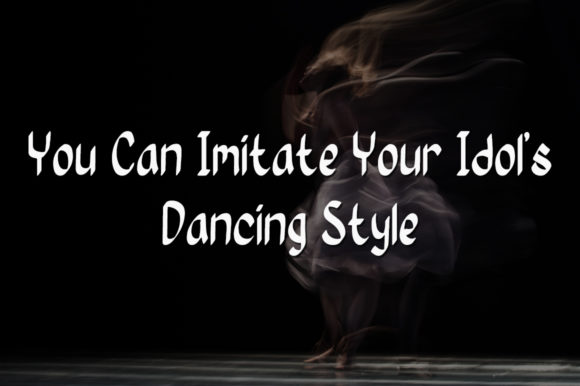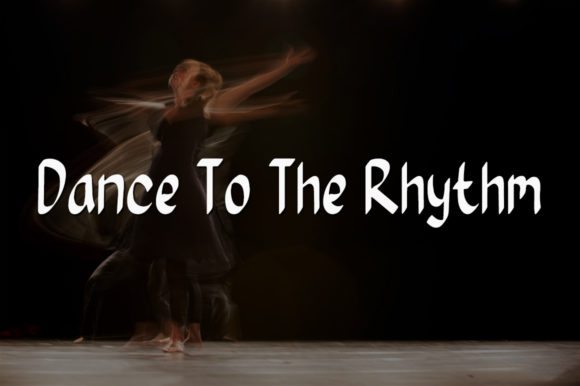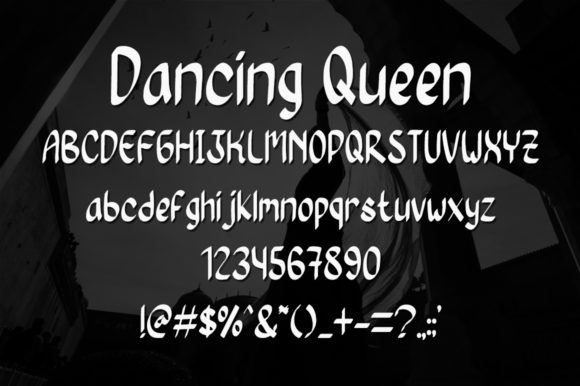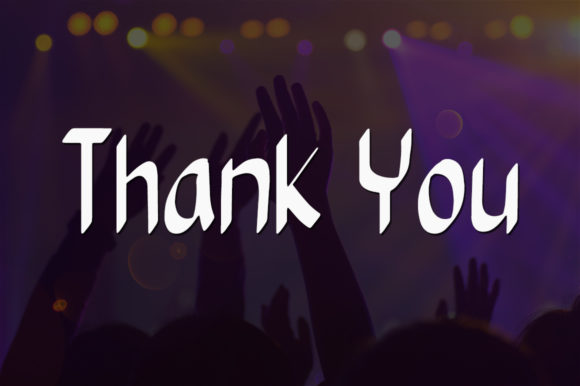
Dancing Queen Font
About Dancing Queen Font
“Dancing Queen” is a font that radiates sweetness and friendliness, making it a delightful choice for a wide range of design projects. With its natural and distinctive style, this font seamlessly adapts to various contexts, allowing your imagination to take center stage. Whether you’re working on joyful designs, expressive projects, or anything in between, “Dancing Queen” is the font that adds a touch of charm and warmth.
The allure of “Dancing Queen” lies in its unique and approachable design. Its handwritten quality and friendly curves create an atmosphere of approachability and positivity. This font’s versatility ensures that it blends effortlessly into different design themes, resonating with diverse audiences.
When woven into your designs, “Dancing Queen” breathes life into ordinary elements, transforming them into visually captivating creations that exude warmth. It brings an air of authenticity and playfulness, lifting your projects to a new level of engagement. Whether you’re working on designs for celebrations, casual events, or vibrant branding, this font captures attention and infuses your work with a sense of delightful energy.
Integrate “Dancing Queen” into your design toolkit and allow it to infuse your creations with its sweet and friendly nature. Regardless of your experience level in design, this font empowers you to craft visuals that radiate positivity and style. Embrace the inherent charm of “Dancing Queen” and let its friendly and inviting character enrich your designs, unlocking endless creative possibilities that are limited only by your imagination.